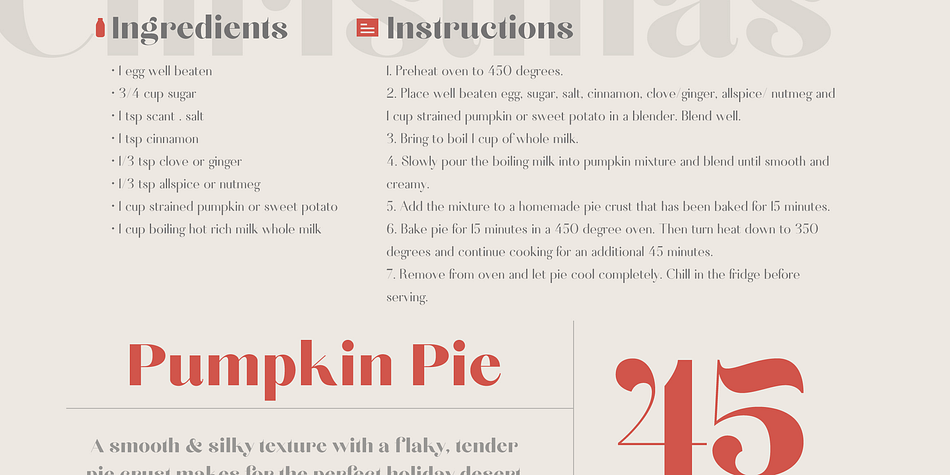
Chloe
Designed by Josh Ownby, Chloe is an art deco font family published by Josh Ownby.
Create bold, gorgeous headlines and elegant designs with a vintage flair. Chloe’s contrasting lines and curved terminals give a sleek, elegant look to logos, holiday cards, wedding invitations, quotes, advertisements, and more. Chloe is a versatile typeface that’s full of character and one you’ll come back to time and again. Create something beautiful today with Chloe.